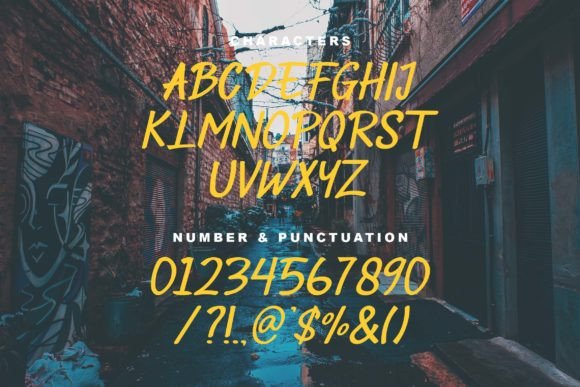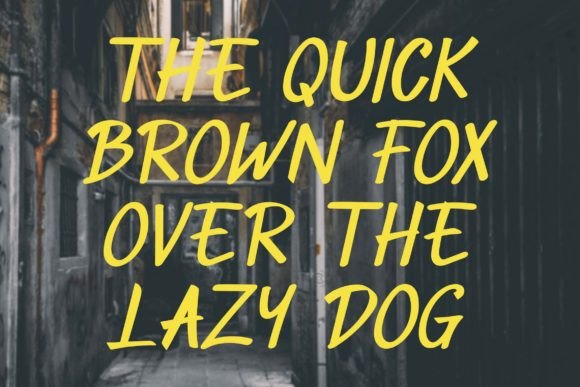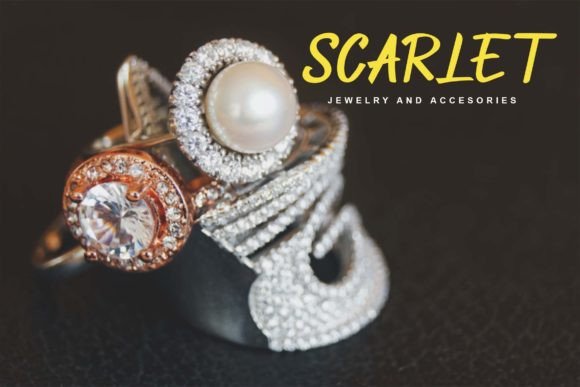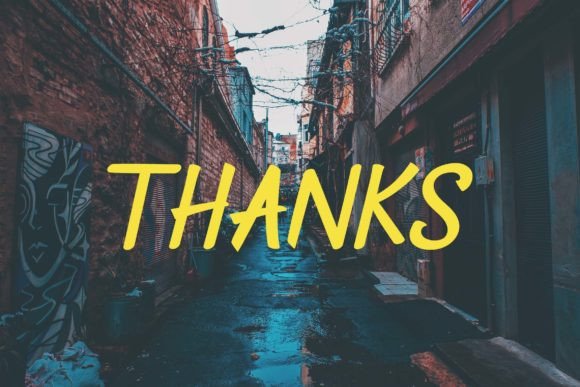
Unleash Your Creativity with Chainsaw Font: The Ultimate Modern Handwritten Display Font
Are you a designer, crafter, or digital artist looking for a font that can elevate your creative projects? Look no further than Chainsaw Font, a modern and cool handwritten display font that’s perfect for a wide range of applications. Whether you’re working on crafts, digital design, presentations, or making greeting cards, Chainsaw Font has the potential to become your new favorite go-to font, no matter the occasion!
What Makes Chainsaw Font So Special?
Chainsaw Font is a unique and stylish handwritten display font that’s designed to make a statement. Its modern and cool aesthetic is perfect for designers and crafters who want to add a touch of personality to their projects. The font’s versatility makes it suitable for a wide range of applications, from digital design and presentations to crafting and making greeting cards.
Key Features of Chainsaw Font
- Modern and Cool Aesthetic: Chainsaw Font has a fresh and contemporary look that’s perfect for designers and crafters who want to stay on-trend.
- Handwritten Display Font: The font’s handwritten style gives it a personal and unique touch that’s perfect for adding a touch of personality to your projects.
- Versatile: Chainsaw Font is suitable for a wide range of applications, from digital design and presentations to crafting and making greeting cards.
- Easy to Read: Despite its bold and expressive style, Chainsaw Font is easy to read, making it perfect for use in titles, headings, and other display text.
Uses for Chainsaw Font
Chainsaw Font is a versatile font that can be used in a wide range of applications, including:
- Digital Design: Use Chainsaw Font to add a touch of personality to your digital designs, such as social media graphics, blog posts, and website headers.
- Crafts: Chainsaw Font is perfect for crafters who want to add a personal touch to their projects, such as scrapbooking, card making, and DIY signs.
- Presentations: Use Chainsaw Font to add a touch of style and personality to your presentations, making them more engaging and memorable.
- Greeting Cards: Chainsaw Font is perfect for making greeting cards, invitations, and other paper crafts that require a personal touch.
Why Designers and Crafters Love Chainsaw Font
Designers and crafters love Chainsaw Font for its unique and stylish aesthetic, versatility, and ease of use. Here are just a few reasons why:
- Unique Style: Chainsaw Font has a unique and stylish aesthetic that’s perfect for designers and crafters who want to stand out from the crowd.
- Time-Saving: With Chainsaw Font, you can create professional-looking projects in no time, saving you time and effort.
| Font Name | Chainsaw Font |
| Author | Saber Studio |
In conclusion, Chainsaw Font is a modern and cool handwritten display font that’s perfect for designers, crafters, and digital artists who want to add a touch of personality to their projects. Its versatility, ease of use, and unique style make it a must-have font for anyone looking to elevate their creative projects. Whether you’re working on digital design, crafts, presentations, or making greeting cards, Chainsaw Font is the perfect choice.